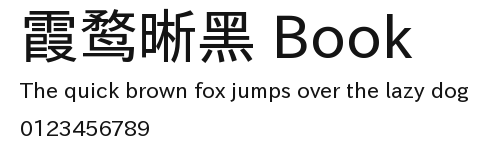
霞鹜晰黑 Book Preview
• Font Name: 霞鹜晰黑 Book
• Font Style: Book
• Full Font Name: 霞鹜晰黑 Book
About 霞鹜晰黑 Book.ttf
霞鹜晰黑 Book.ttf is a modern, elegant sans-serif font designed for ultimate readability and visual harmony. Perfect for branding, headlines, web design, and print materials.